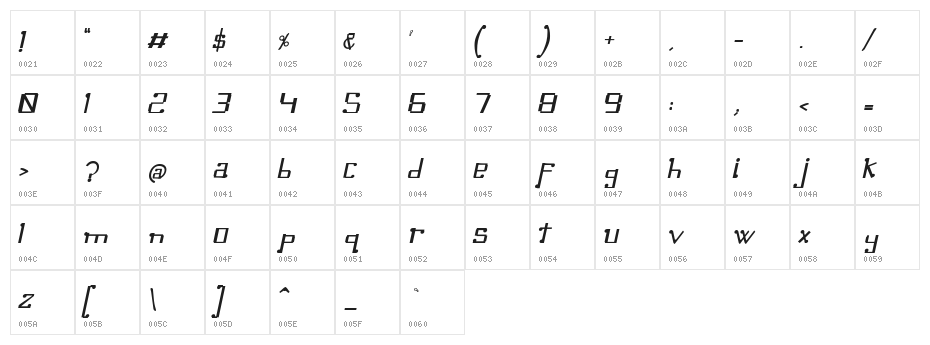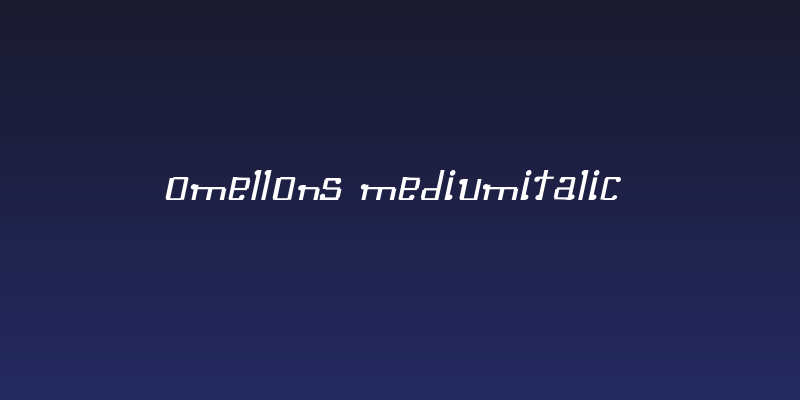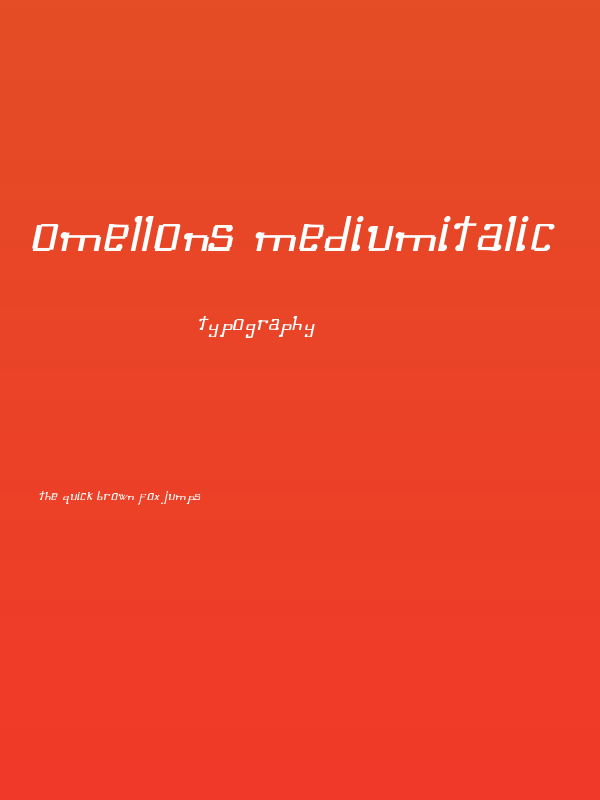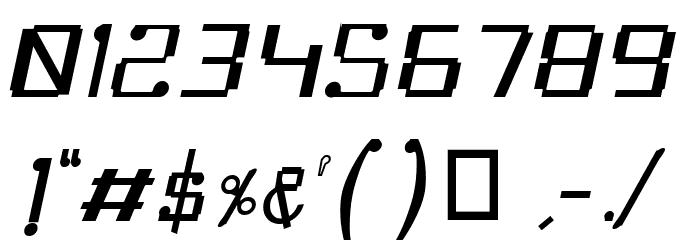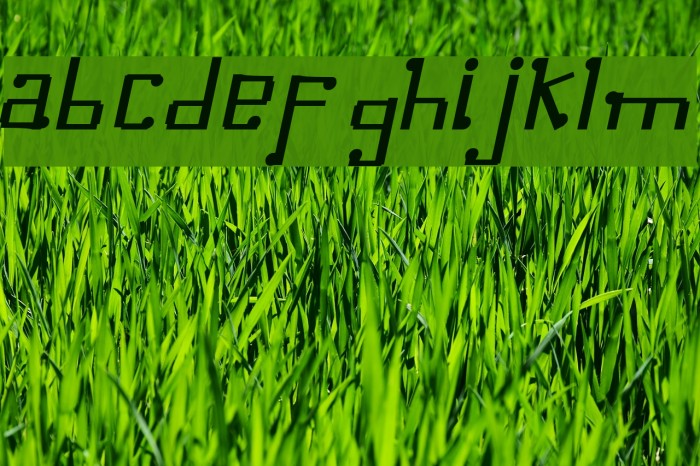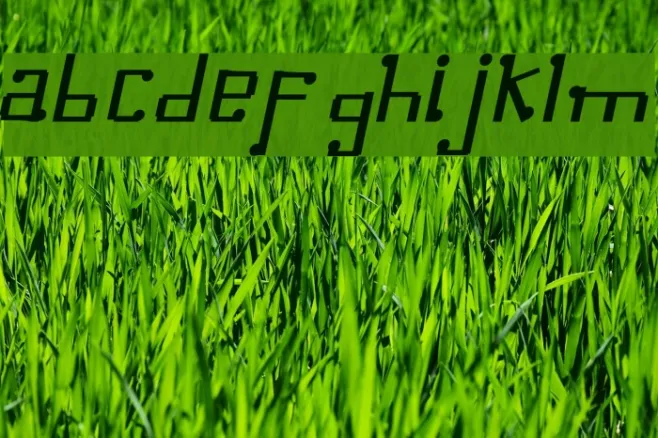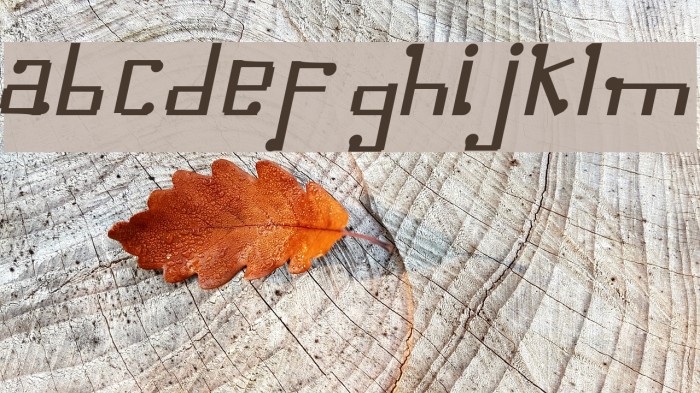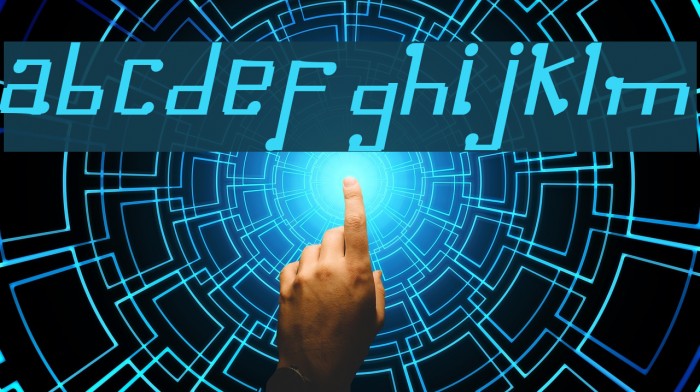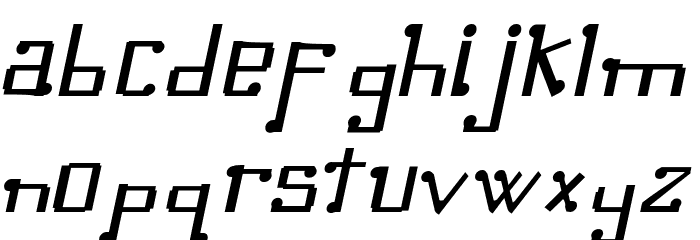
Omellons MediumItalic Font
Omellons MediumItalic Description
This font features a unique blend of modern and vintage styles, characterized by its angular, geometric shapes and distinctive italic slant. The letters have a consistent stroke width, giving it a monospaced appearance, yet maintaining a dynamic flow. The uppercase and lowercase letters are designed with a slight forward tilt, enhancing its italic nature. The numerals and special characters follow the same stylistic cues, ensuring uniformity across all glyphs. Its bold presence is balanced by the open counters and generous spacing, making it highly legible even at smaller sizes.
| Overall Style | Modern, Decorative |
| Use Case | Headlines, Logos, Branding |
| Proposed Projects | Ideal for branding, headlines, and editorial design where a modern yet distinctive look is desired. |